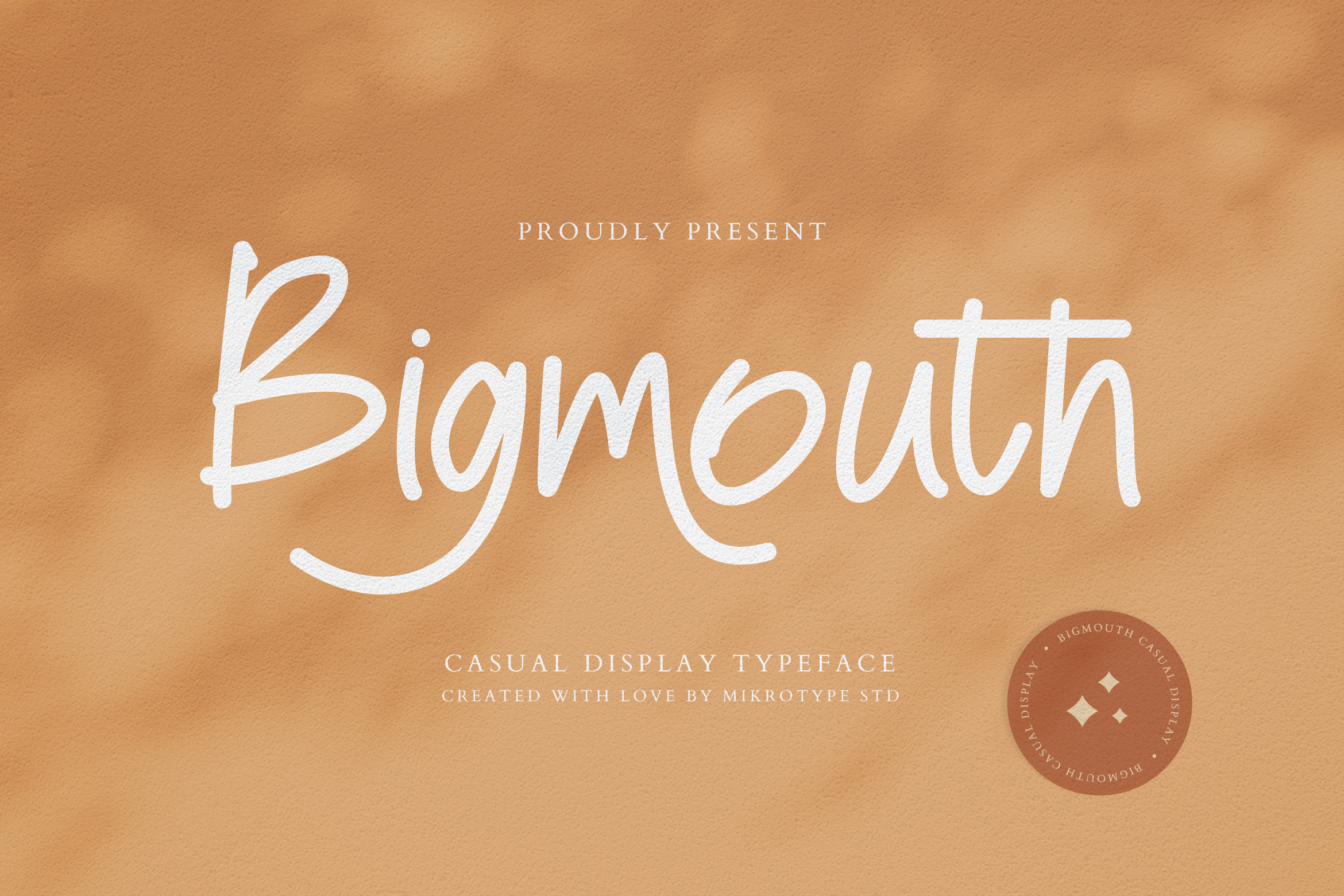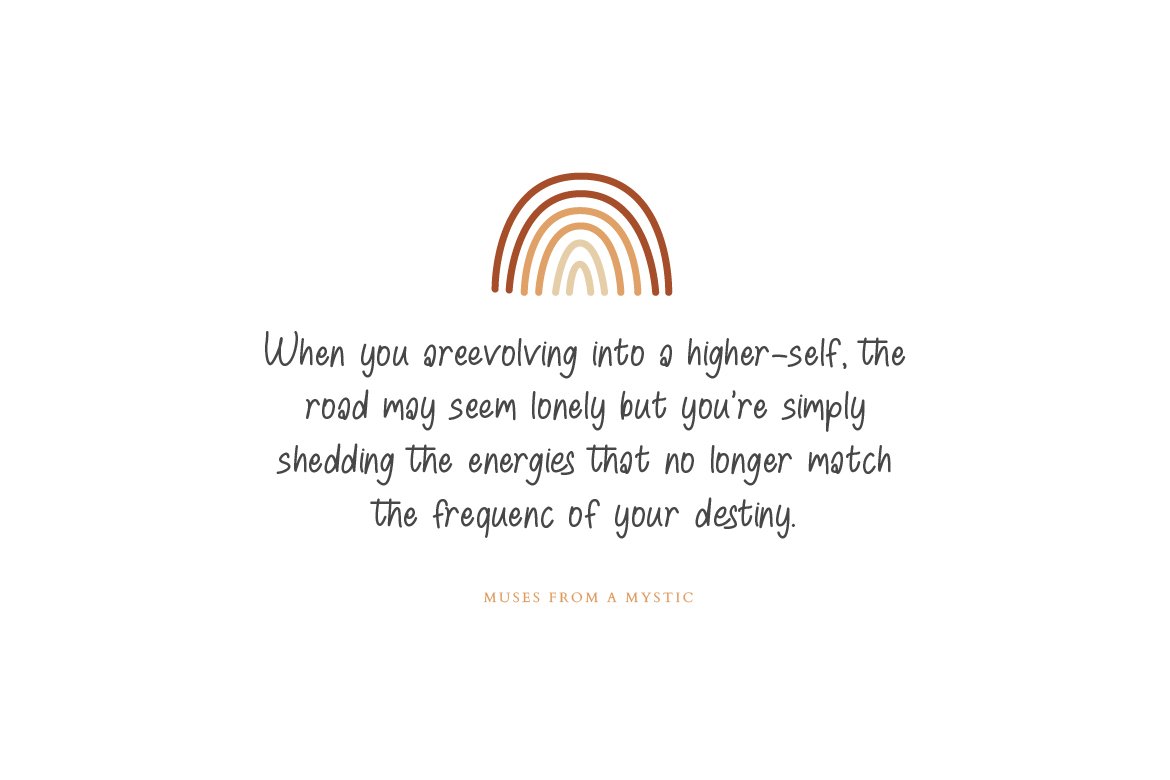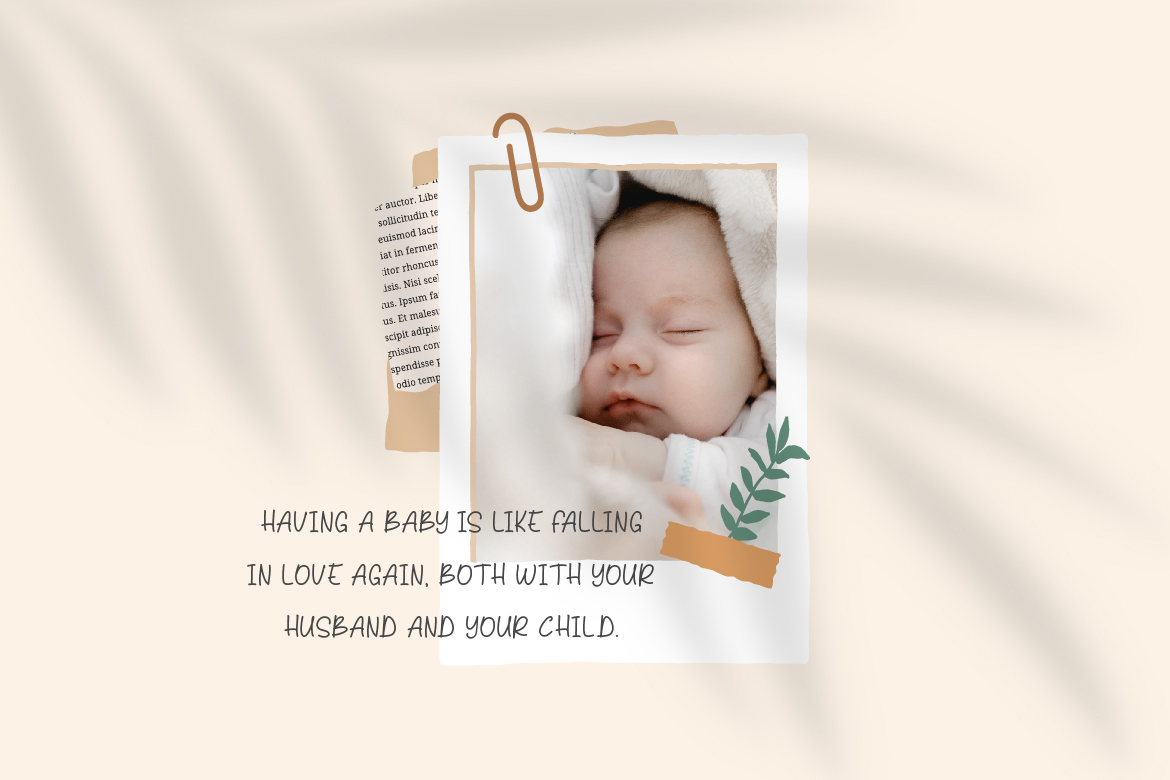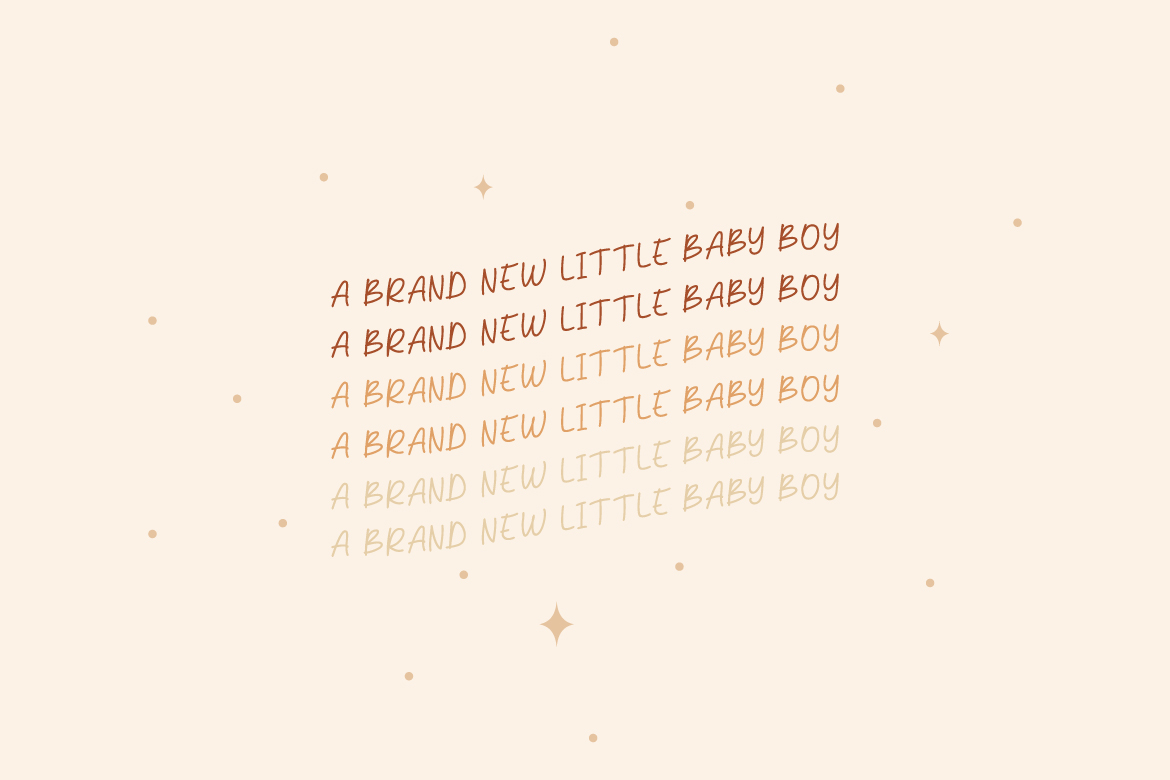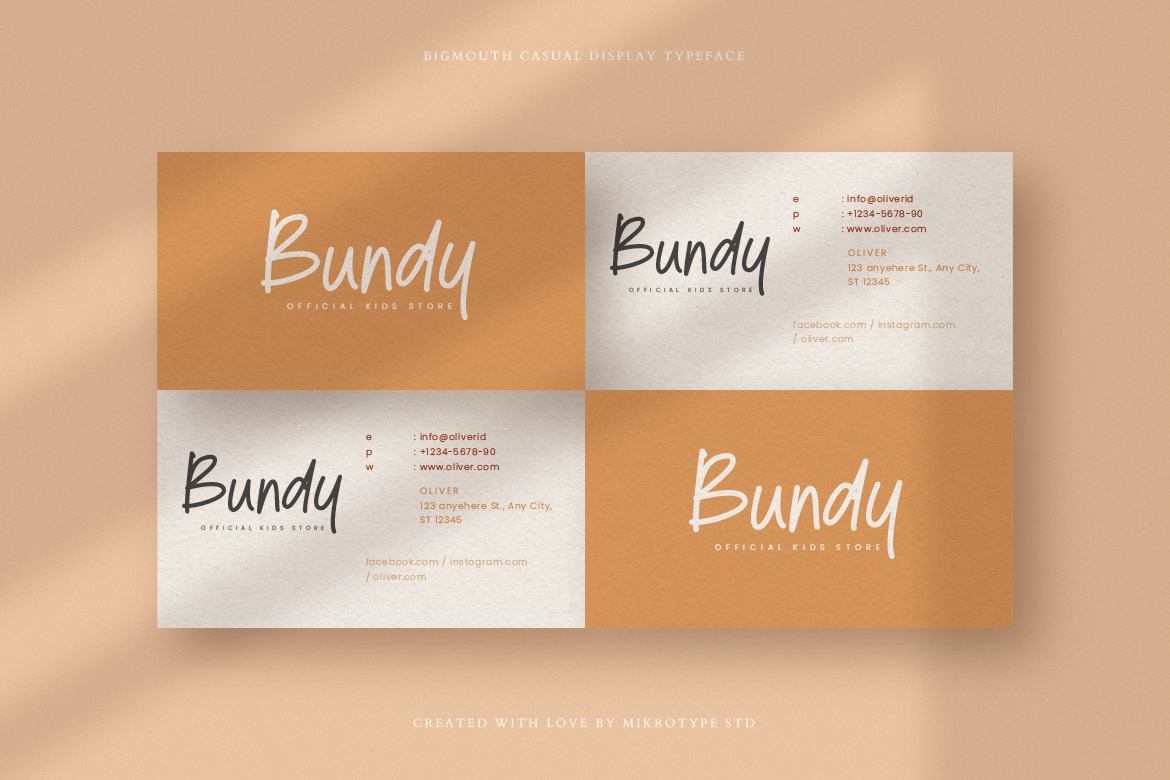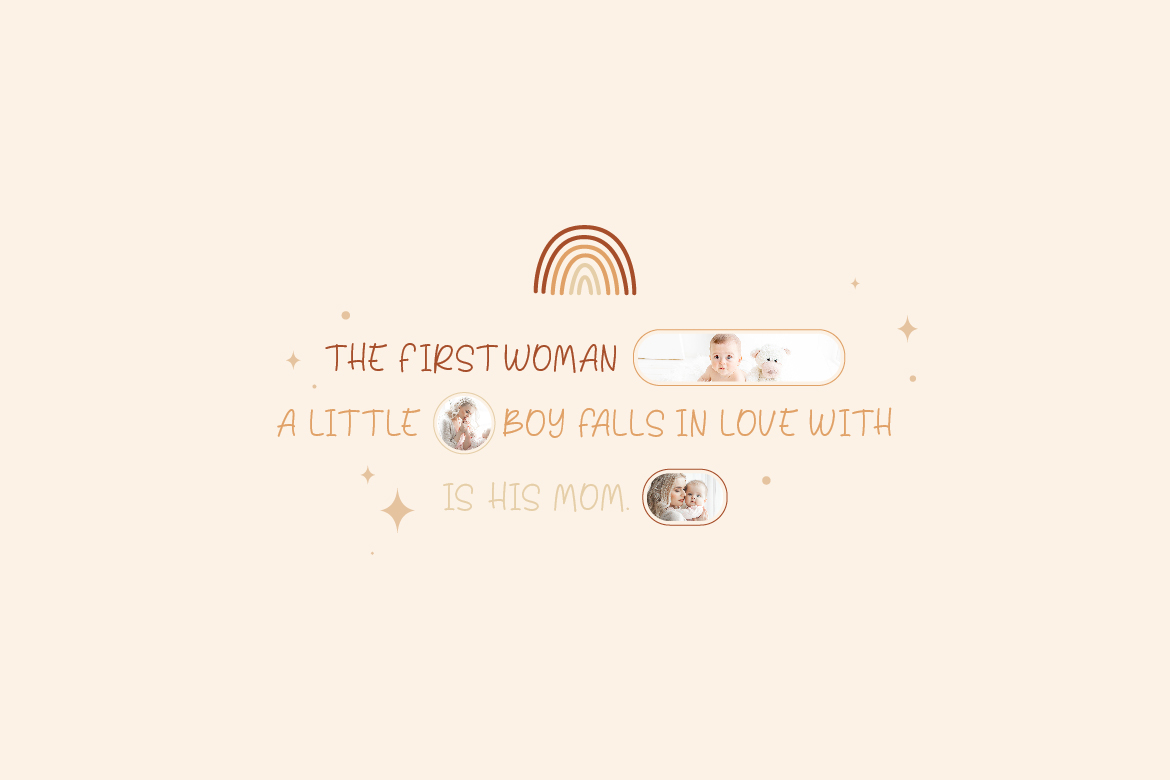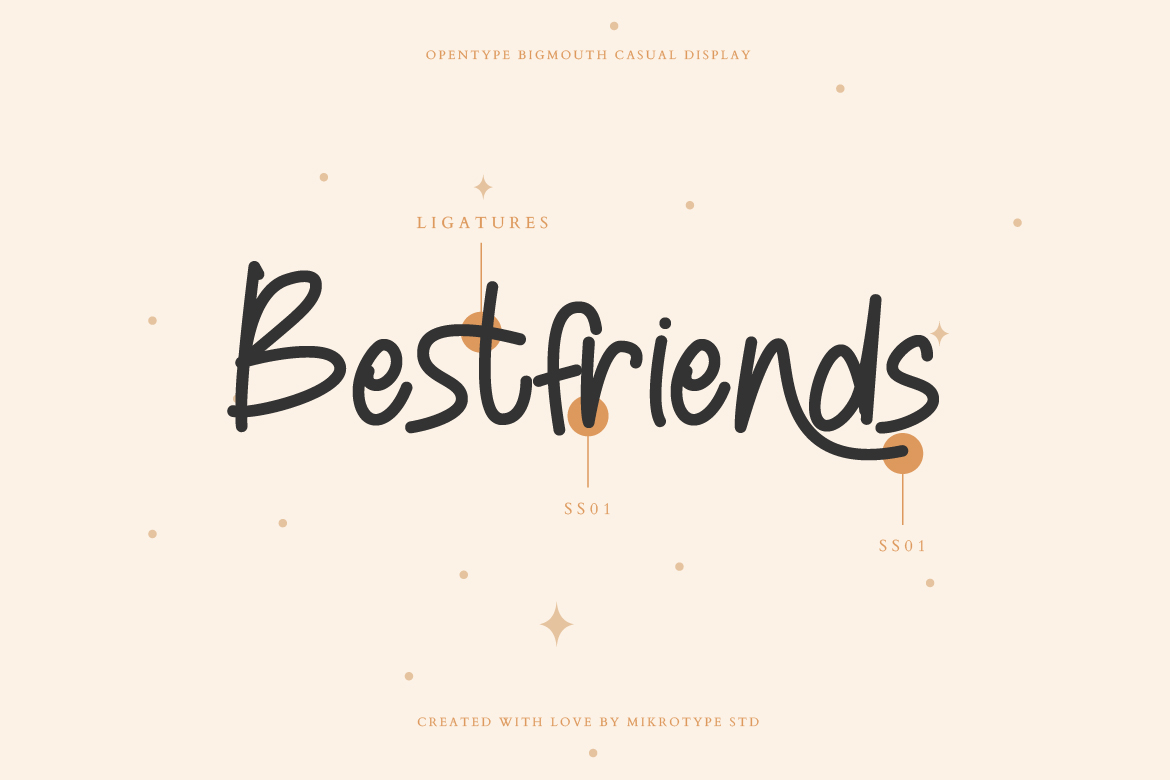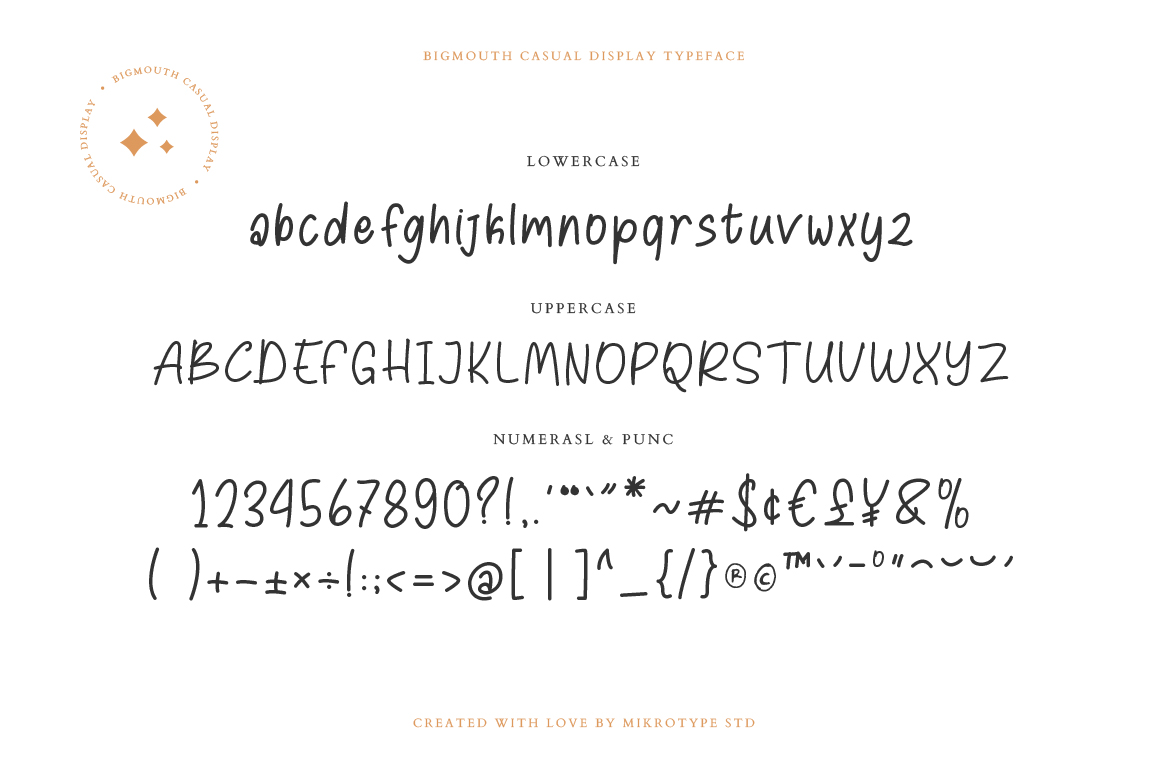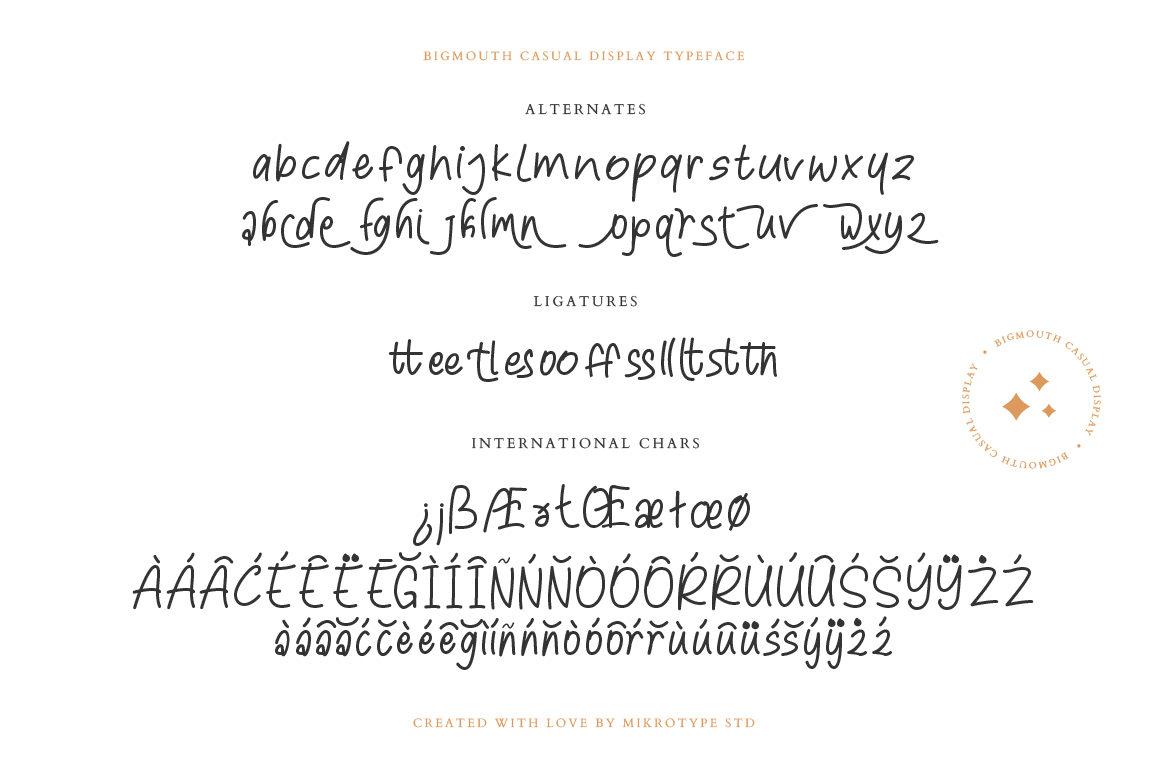
Bigmouth Casual Business Font Special
Introducing Bigmouth – A fun and casual display typeface made especially with love, resulting in a font that looks absolutely extraordinary. This font is perfect for all your products that need a cheerful, cute and adorable feel. The font is perfect for for movie title, logo, blogging, brand identity, book title, social media, branding, wedding invites, cards or simply use it in your next design project and suitable to use for many occasion.
• Ton of glyphs
• Ligature & Alternate
• Fonts include multilingual support for; Afrikaans, Albanian, Czech, Danish, Dutch, English, Estonian, Finnish, French, German, Hungarian, Italian, Latvian, Lithuanian, Norwegian, Polish, Portuguese, Slovak, Slovenian, Spanish, Swedish.